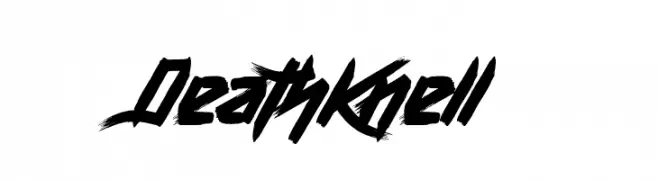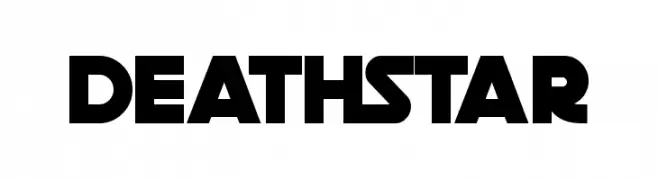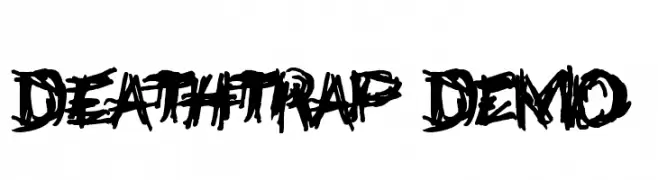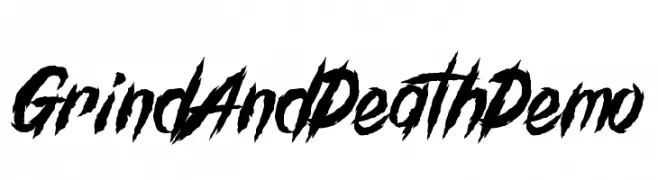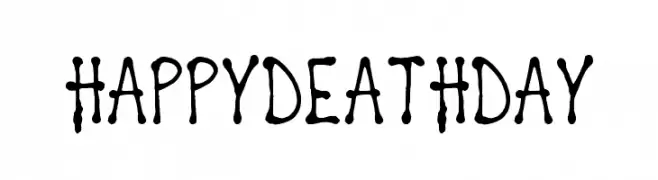
A bold, dripping font ideal for horror and Halloween themes.
A bold, pixelated font with a retro digital aesthetic.
A bold, brush-style font with sharp, angular strokes and high contrast.
A playful, hand-drawn font with a quirky and slightly eerie style.
A bold, futuristic font with geometric shapes and a sci-fi aesthetic.
A bold, graffiti-inspired font with an edgy, hand-drawn look.